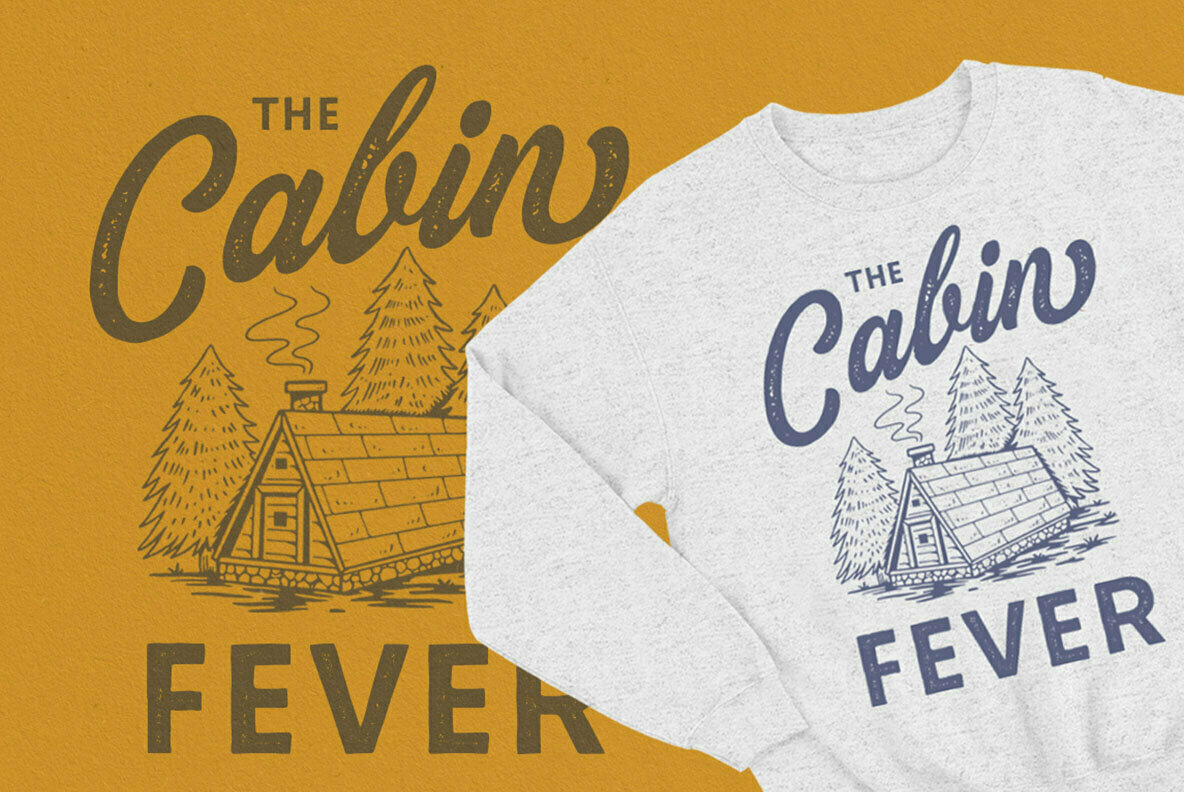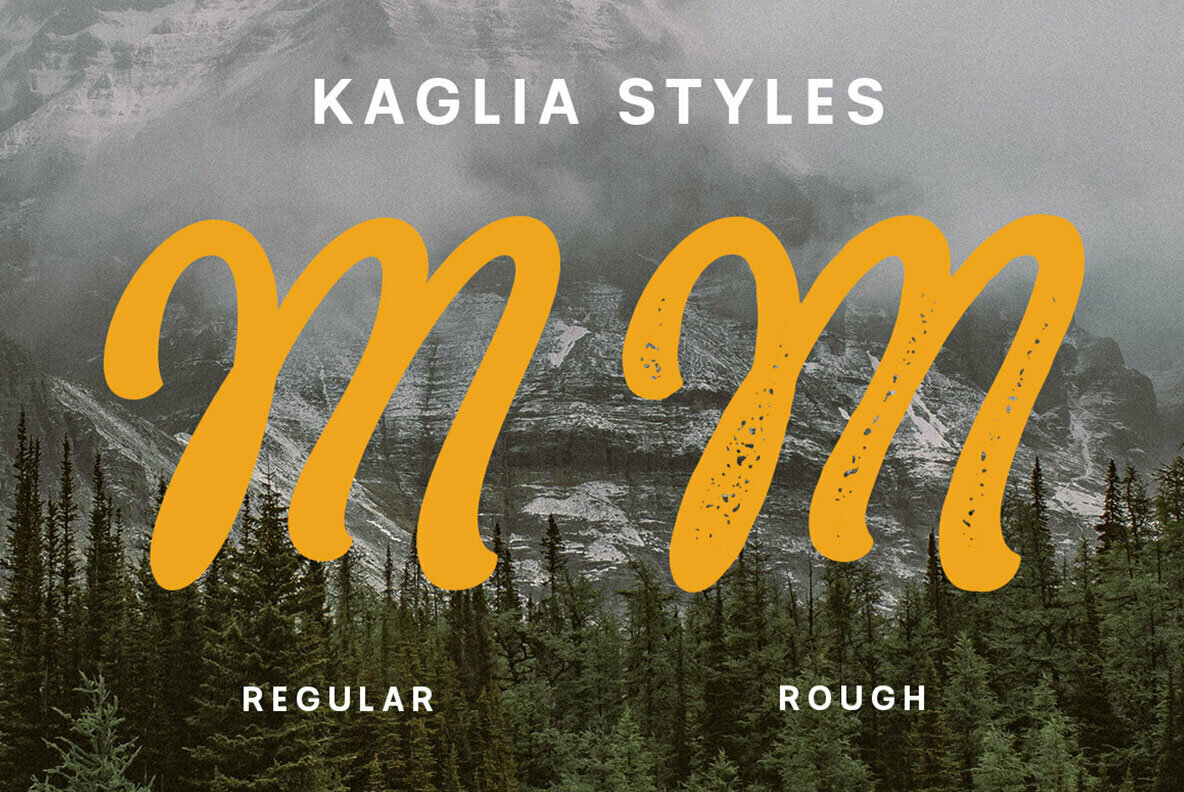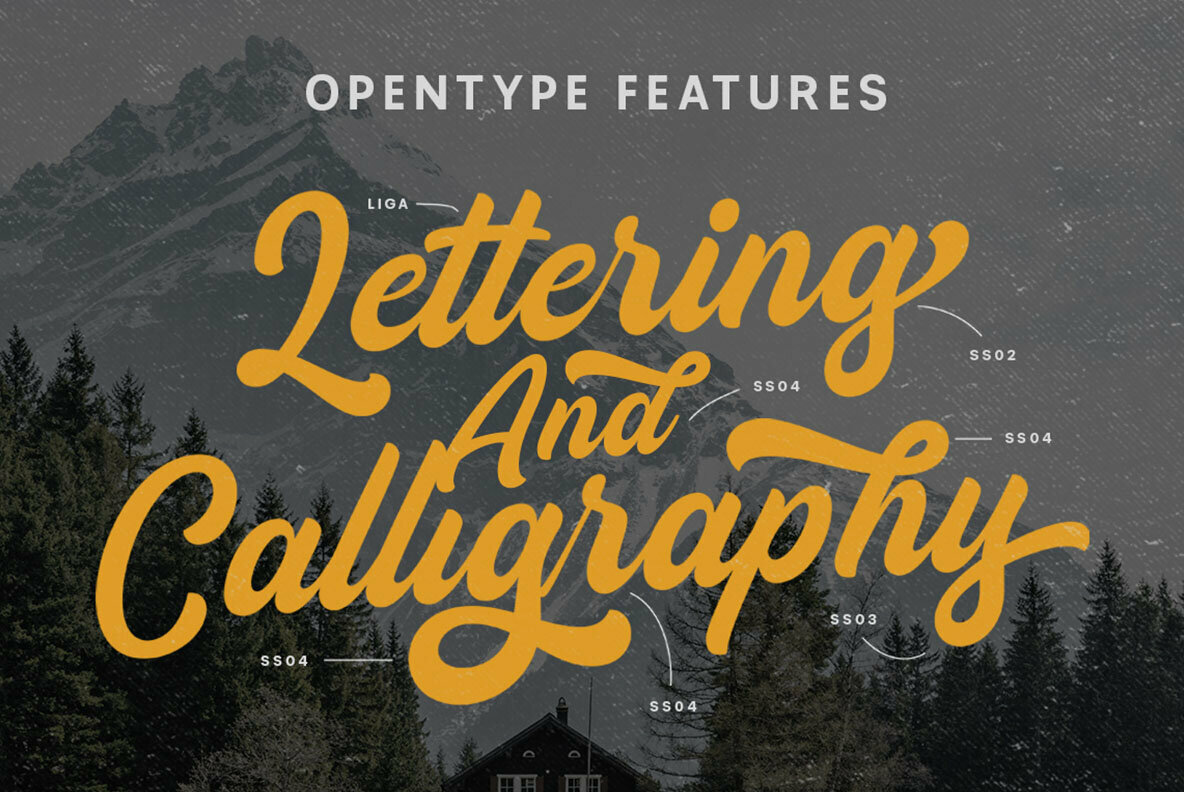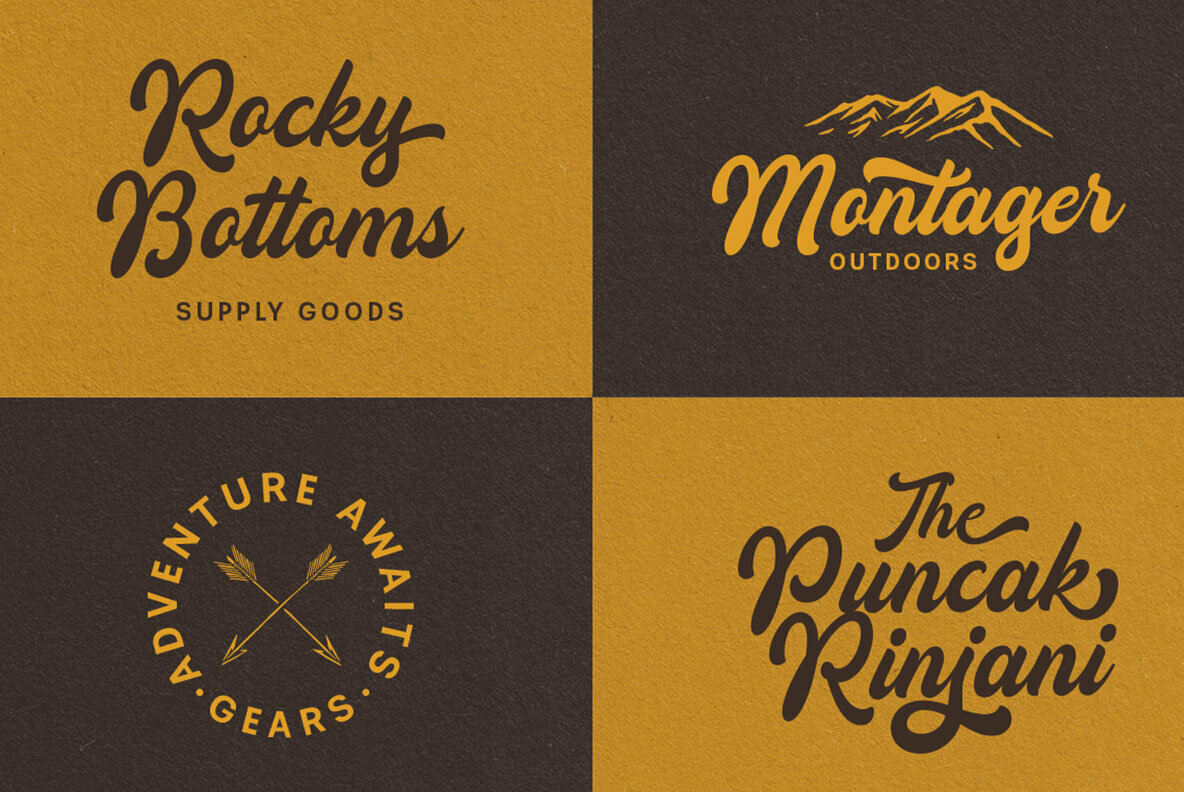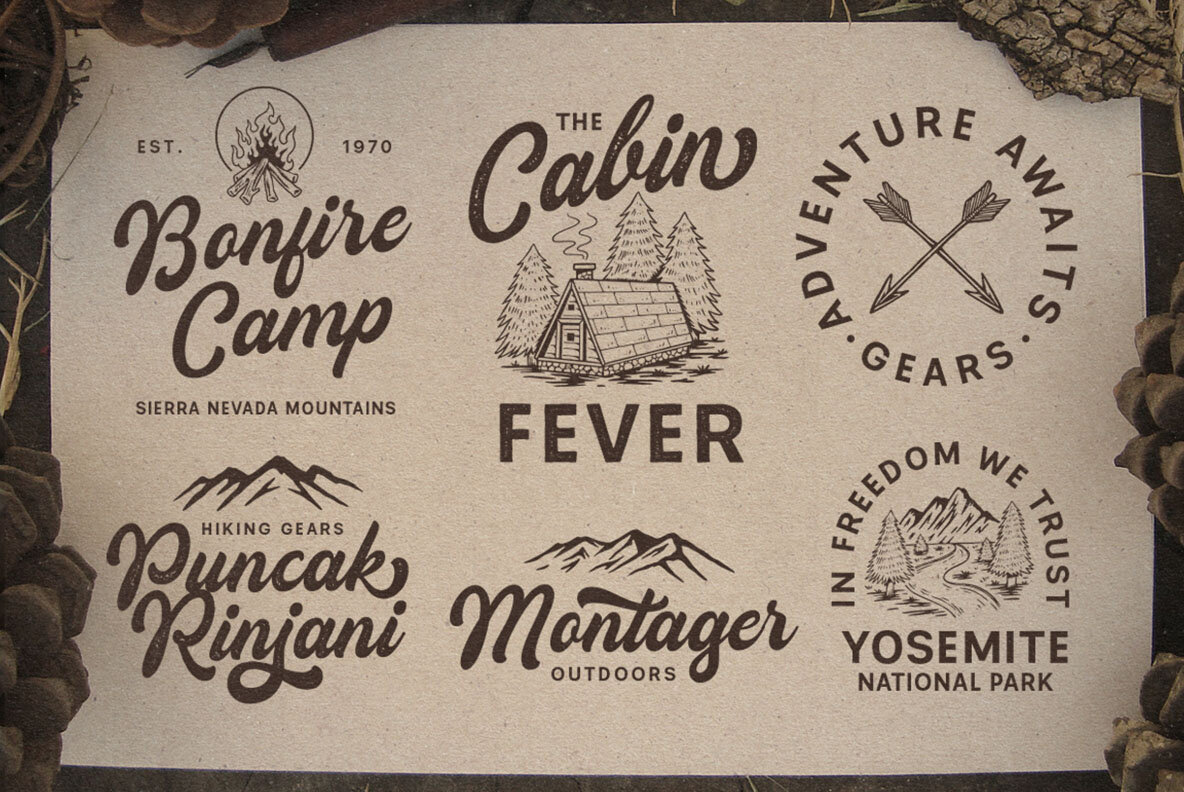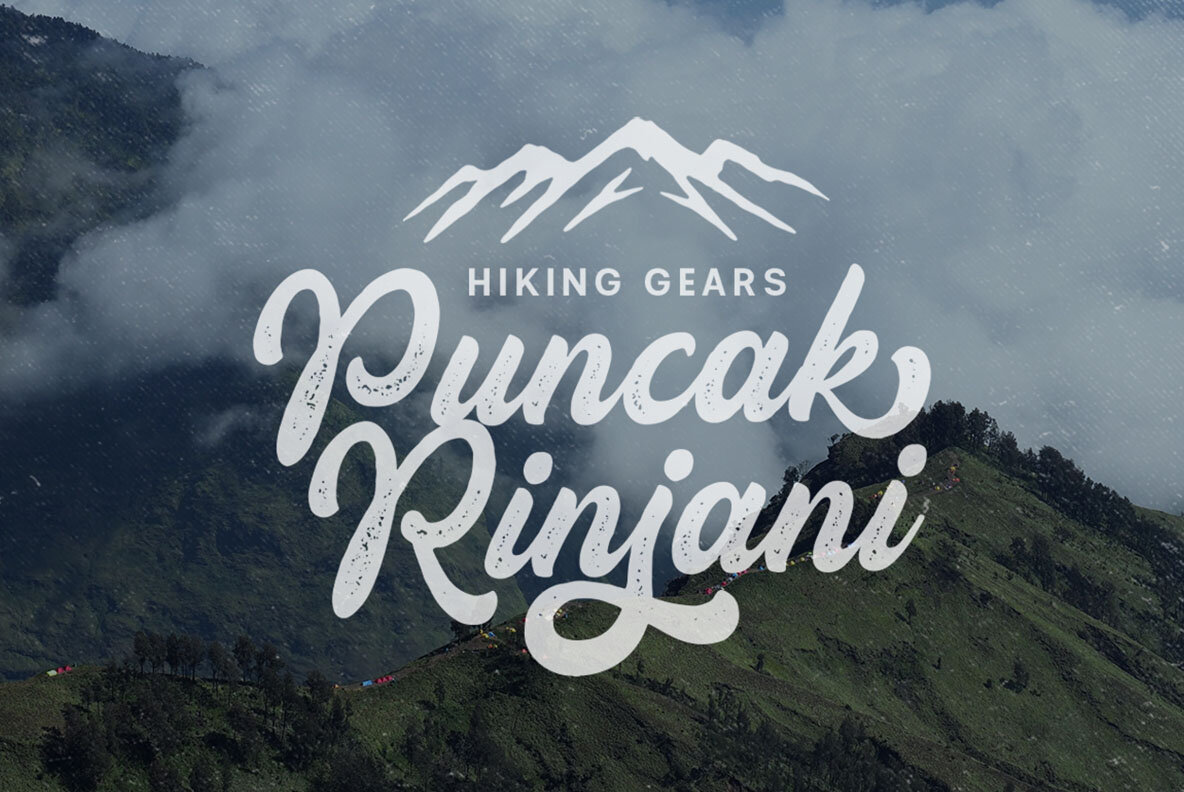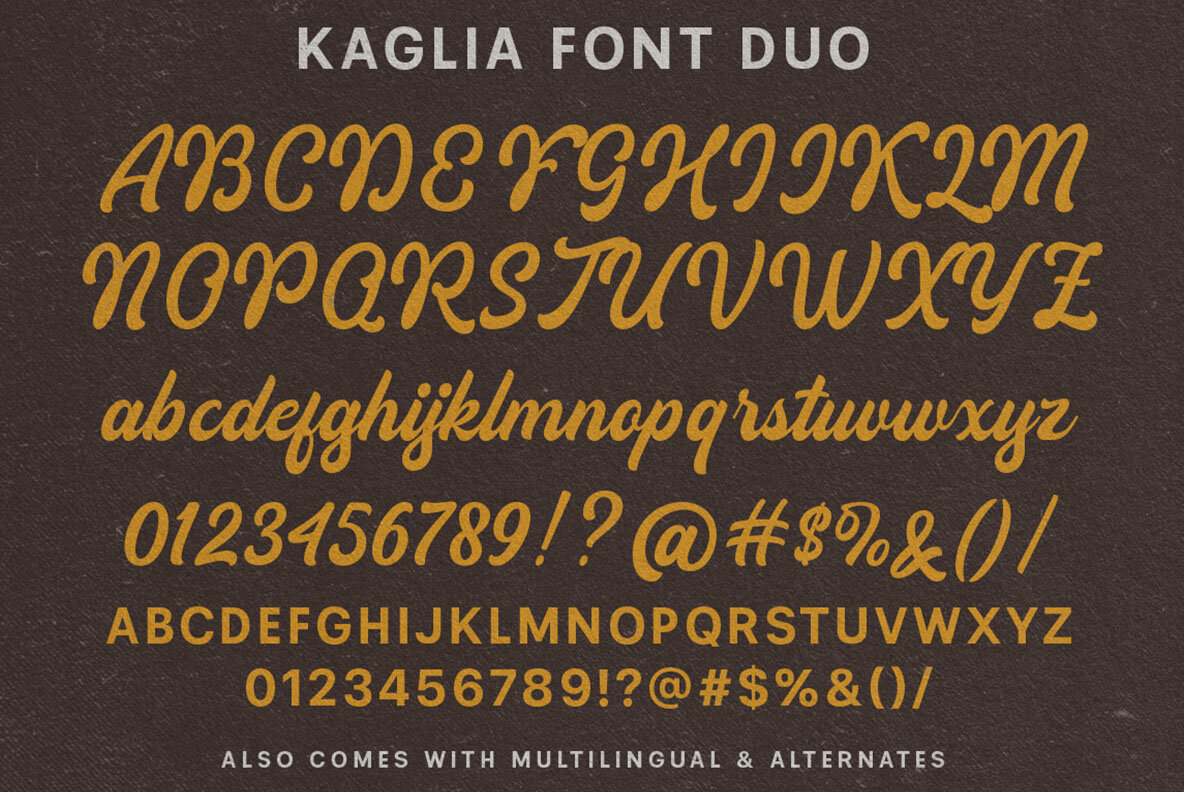
Kaglia Font Duo and Extras
Rediscover the art of typography with the Kaglia Font Duo, an exquisite combination of hand-drawn bold script and sans serif fonts. This sophisticated pair resonates beautifully with vintage and adventure themes. Designed by Letterhend Studio, Kaglia not only excels in headlines and displays but also brings a unique flair to logotypes and signatures, making it a go-to choice for designers crafting standout visuals. For those seeking versatility, Kaglia seamlessly adapts to various formal applications: logos, invitations, labels, magazines, books, greeting or wedding cards, packaging, fashion, makeup branding, stationery, novels, and advertising. Its wide-ranging appeal ensures it remains an invaluable asset in the design toolkit.Kaglia Font Duo: Bold Script and Sans Serif for Vintage Themes